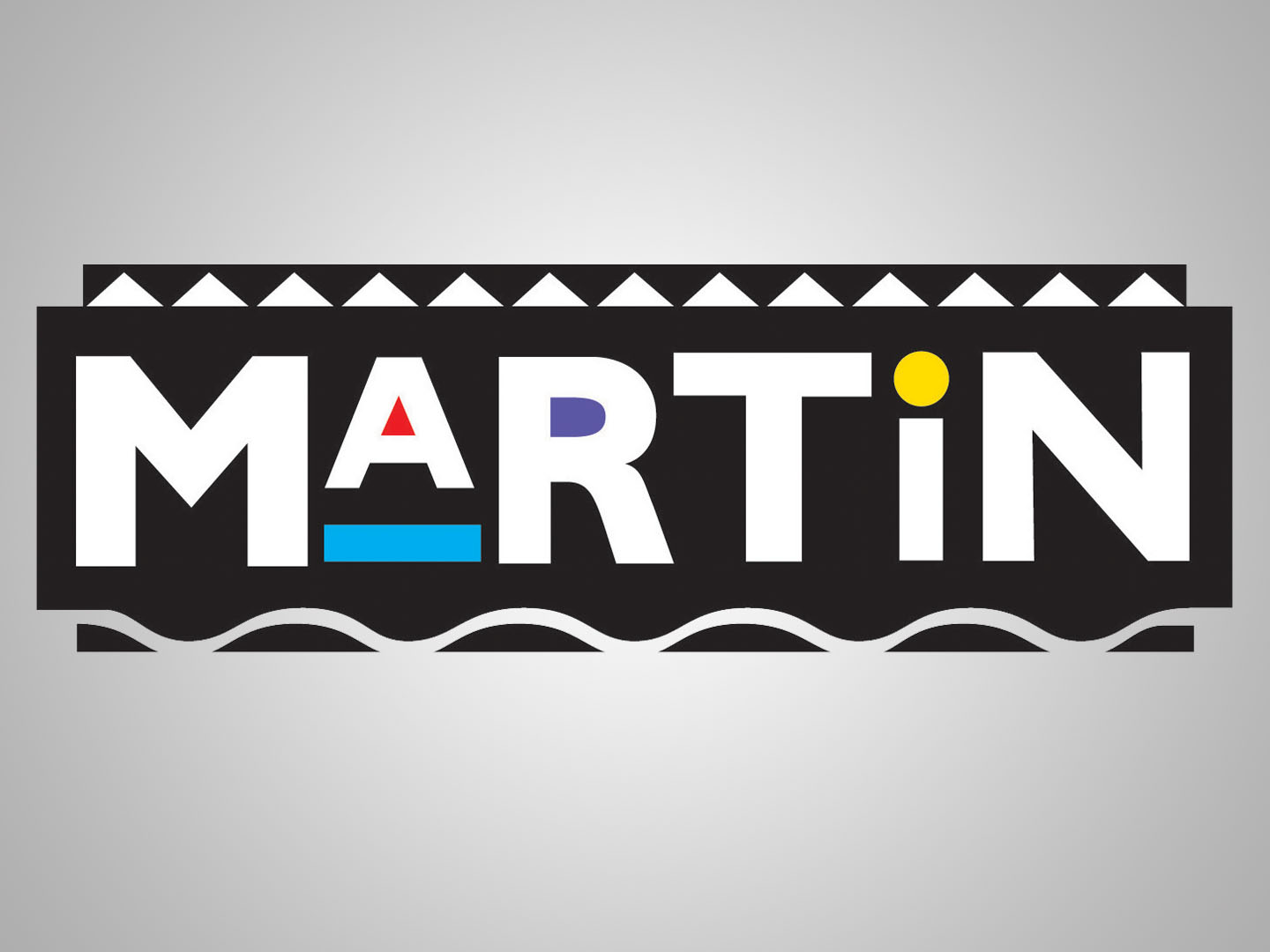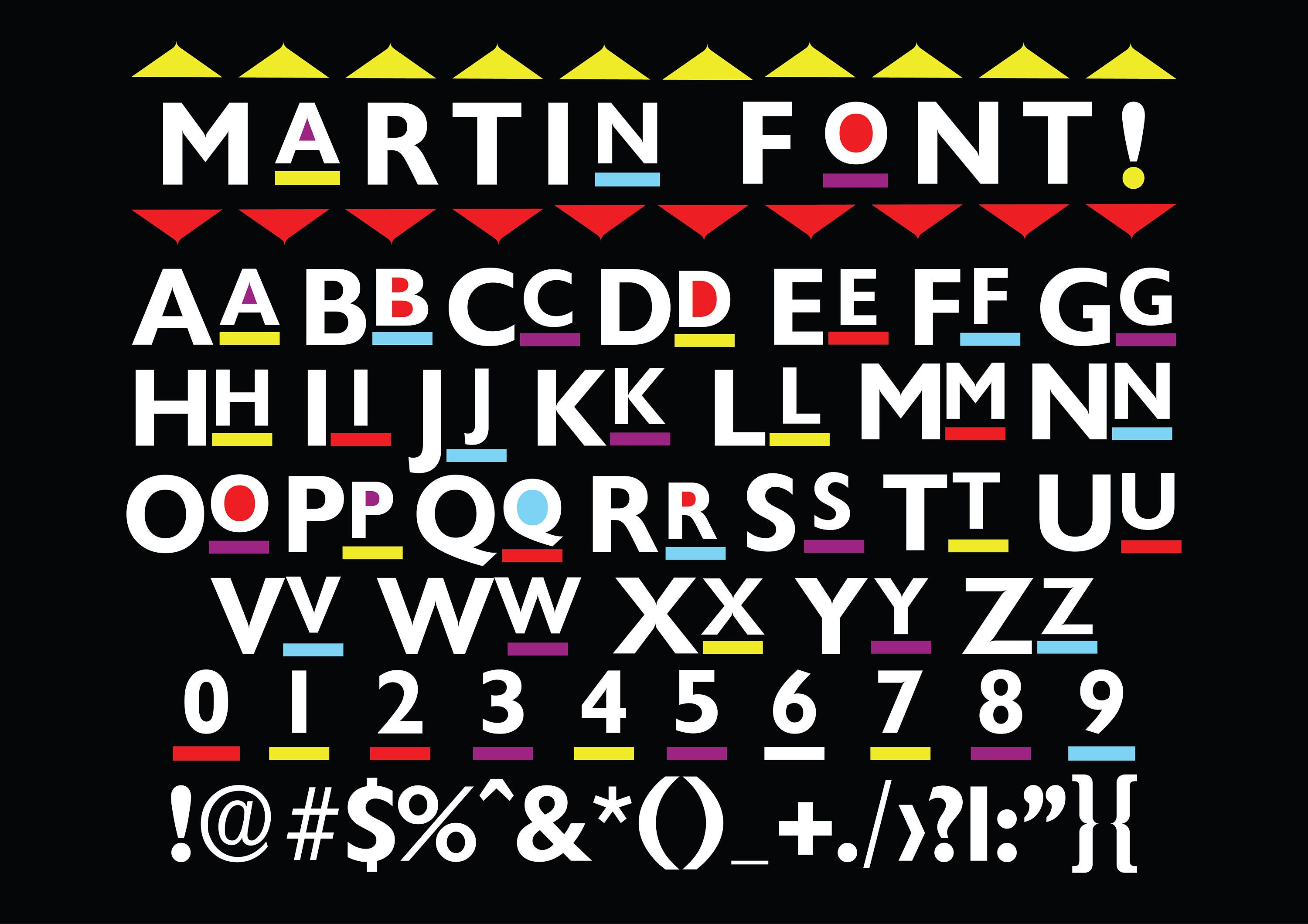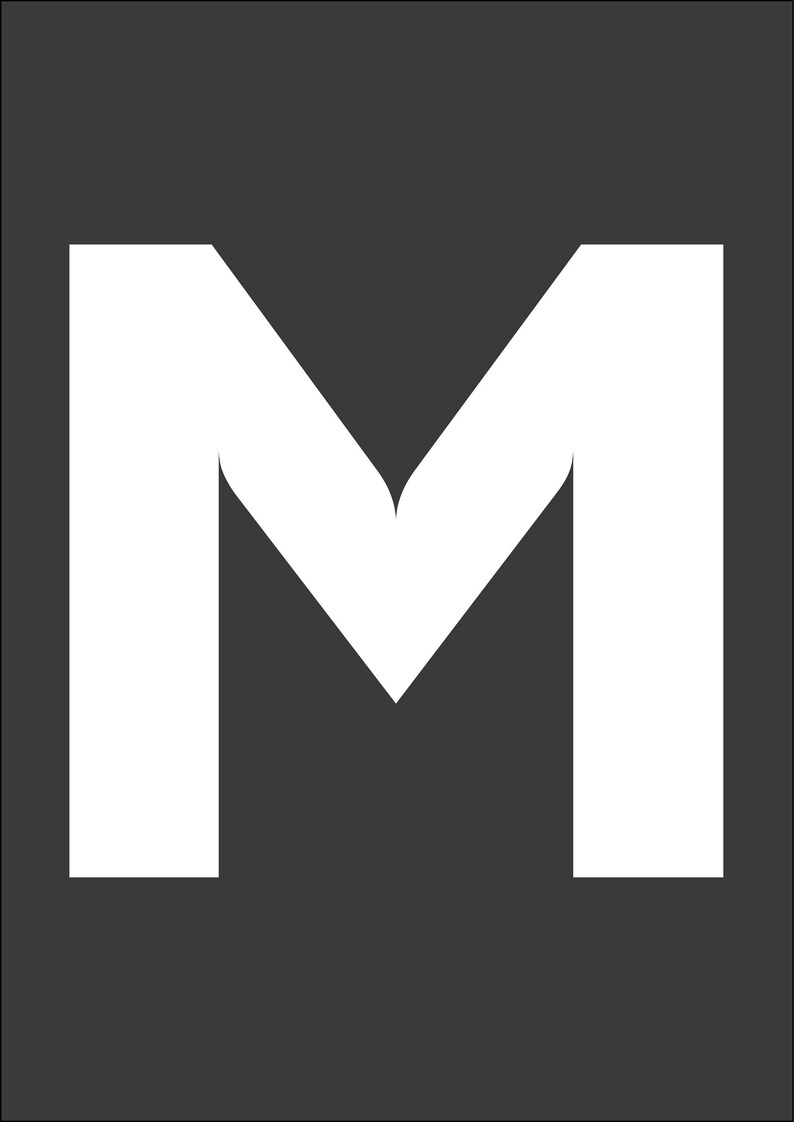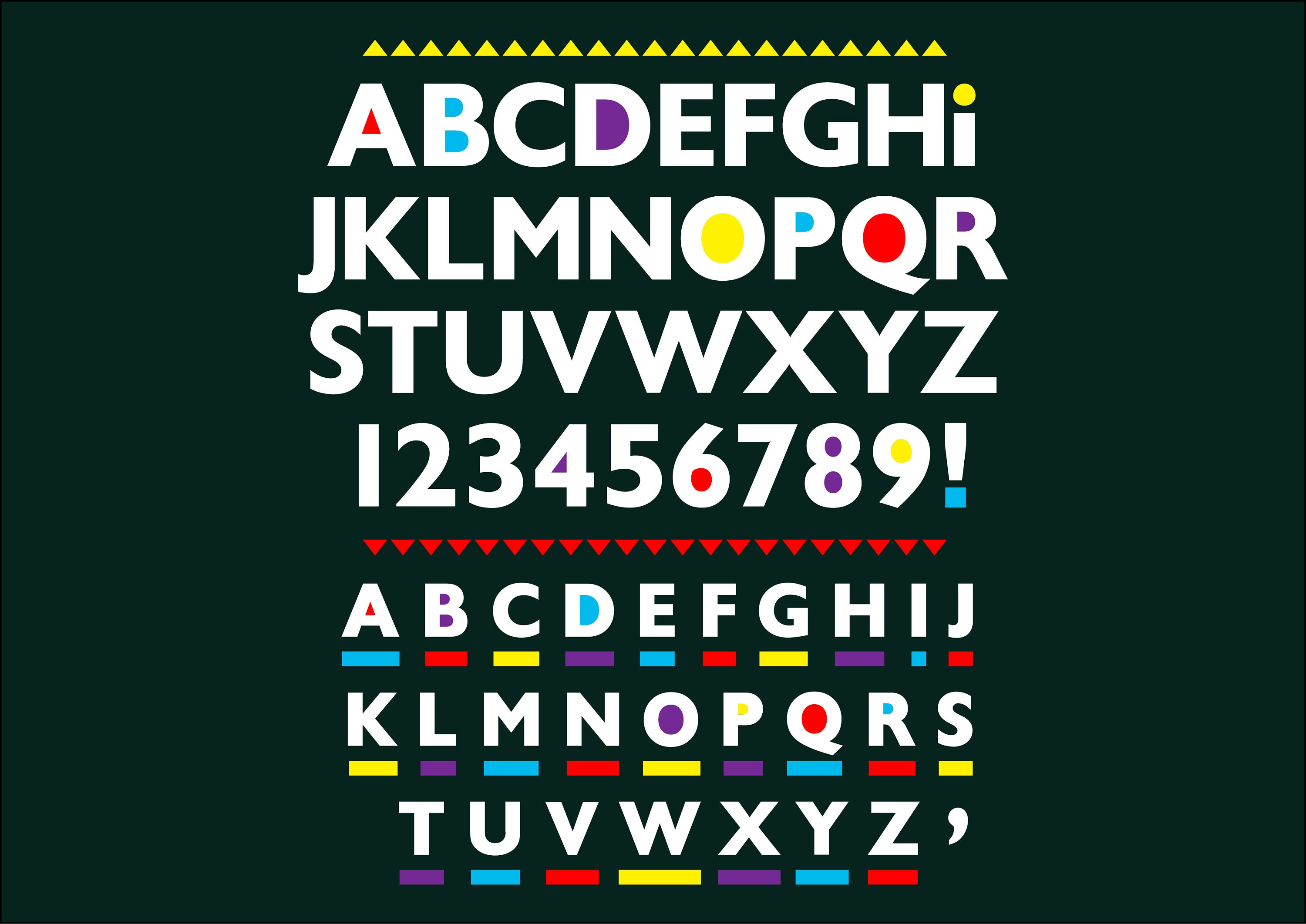
Martin Show Font
Martin Show Font - Browse by alphabetical listing, by style, by author or by popularity. To introduce the martin font, a font that attracts the attention and special attention of graphic designers around the world. Web check out our martin the show font selection for the very best in unique or custom, handmade pieces from our drawings & sketches shops. Web martin is a beloved tv show sitcom. This explains why many people want to make the iconic logo for themselves. Web the time is now 11:12. Archive of freely downloadable fonts. Web the font used for the logo of the tv show is probably gill sans heavy, a humanist sans serif designed by english type designer eric gill, who also designed popular typefaces. Luckily for you, we’ve made a typeable.
This explains why many people want to make the iconic logo for themselves. Web martin is a beloved tv show sitcom. Browse by alphabetical listing, by style, by author or by popularity. Web the time is now 11:12. Web check out our martin the show font selection for the very best in unique or custom, handmade pieces from our drawings & sketches shops. Archive of freely downloadable fonts. To introduce the martin font, a font that attracts the attention and special attention of graphic designers around the world. Luckily for you, we’ve made a typeable. Web the font used for the logo of the tv show is probably gill sans heavy, a humanist sans serif designed by english type designer eric gill, who also designed popular typefaces.
Web the font used for the logo of the tv show is probably gill sans heavy, a humanist sans serif designed by english type designer eric gill, who also designed popular typefaces. Web check out our martin the show font selection for the very best in unique or custom, handmade pieces from our drawings & sketches shops. Archive of freely downloadable fonts. Web the time is now 11:12. Web martin is a beloved tv show sitcom. Luckily for you, we’ve made a typeable. To introduce the martin font, a font that attracts the attention and special attention of graphic designers around the world. This explains why many people want to make the iconic logo for themselves. Browse by alphabetical listing, by style, by author or by popularity.
Martin TV Show Font
This explains why many people want to make the iconic logo for themselves. Web the font used for the logo of the tv show is probably gill sans heavy, a humanist sans serif designed by english type designer eric gill, who also designed popular typefaces. Archive of freely downloadable fonts. Web the time is now 11:12. To introduce the martin.
Archive of freely downloadable fonts. Web the time is now 11:12. To introduce the martin font, a font that attracts the attention and special attention of graphic designers around the world. Luckily for you, we’ve made a typeable. Web check out our martin the show font selection for the very best in unique or custom, handmade pieces from our drawings.
Luckily for you, we’ve made a typeable. Web the font used for the logo of the tv show is probably gill sans heavy, a humanist sans serif designed by english type designer eric gill, who also designed popular typefaces. To introduce the martin font, a font that attracts the attention and special attention of graphic designers around the world. Browse.
This explains why many people want to make the iconic logo for themselves. Luckily for you, we’ve made a typeable. Web the font used for the logo of the tv show is probably gill sans heavy, a humanist sans serif designed by english type designer eric gill, who also designed popular typefaces. Browse by alphabetical listing, by style, by author.
Browse by alphabetical listing, by style, by author or by popularity. Luckily for you, we’ve made a typeable. Archive of freely downloadable fonts. Web check out our martin the show font selection for the very best in unique or custom, handmade pieces from our drawings & sketches shops. This explains why many people want to make the iconic logo for.
MARTIN FONT SVG Martin Tv Show Silhouette Cut File For Etsy
Web the time is now 11:12. Luckily for you, we’ve made a typeable. Web the font used for the logo of the tv show is probably gill sans heavy, a humanist sans serif designed by english type designer eric gill, who also designed popular typefaces. This explains why many people want to make the iconic logo for themselves. Archive of.
Martin the Show Font Etsy
Archive of freely downloadable fonts. Web check out our martin the show font selection for the very best in unique or custom, handmade pieces from our drawings & sketches shops. Web martin is a beloved tv show sitcom. Browse by alphabetical listing, by style, by author or by popularity. Web the font used for the logo of the tv show.
Martin Font Download install & type option 1.25 Svg text
Web the font used for the logo of the tv show is probably gill sans heavy, a humanist sans serif designed by english type designer eric gill, who also designed popular typefaces. Web martin is a beloved tv show sitcom. Web the time is now 11:12. Web check out our martin the show font selection for the very best in.
MARTIN FONT SVG Martin Tv Show Silhouette Cut File For Etsy
Luckily for you, we’ve made a typeable. Web martin is a beloved tv show sitcom. Web the time is now 11:12. Browse by alphabetical listing, by style, by author or by popularity. This explains why many people want to make the iconic logo for themselves.
Web the time is now 11:12. Web the font used for the logo of the tv show is probably gill sans heavy, a humanist sans serif designed by english type designer eric gill, who also designed popular typefaces. Luckily for you, we’ve made a typeable.